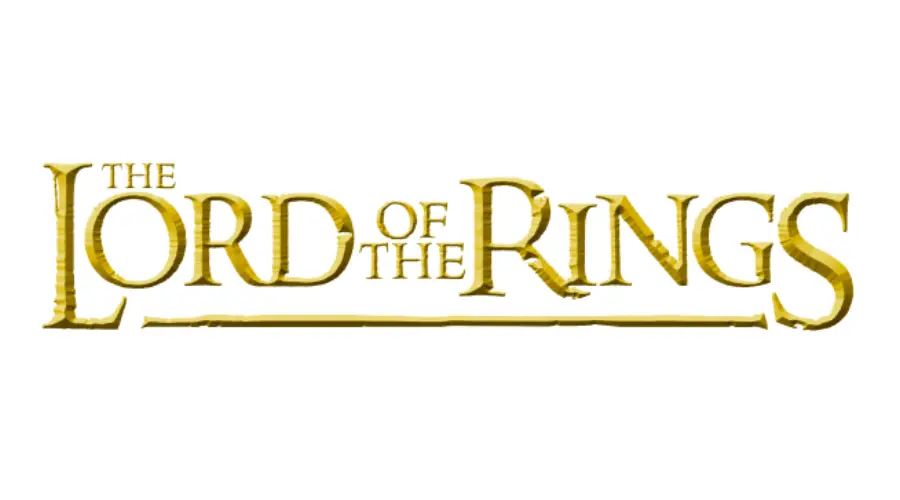
The Lord of the Rings font is an iconic typeface that has become synonymous with the epic fantasy world created by J.R.R. Tolkien. While the original font used in the movie titles and logos was custom-made, several replica and similar fonts have been created to capture its essence.
If you’re looking for fonts with a similar vibe, here are some great alternatives:
Ringbearer by Pete Klassen
This is the most accurate replica of the original LOTR movie font. It features the same intricate, fantasy-inspired design.
Goudy National Semibold by Steve Matteson
While not an exact match, this font shares a similar medieval and timeless aesthetic, making it a great alternative for projects inspired by LOTR.